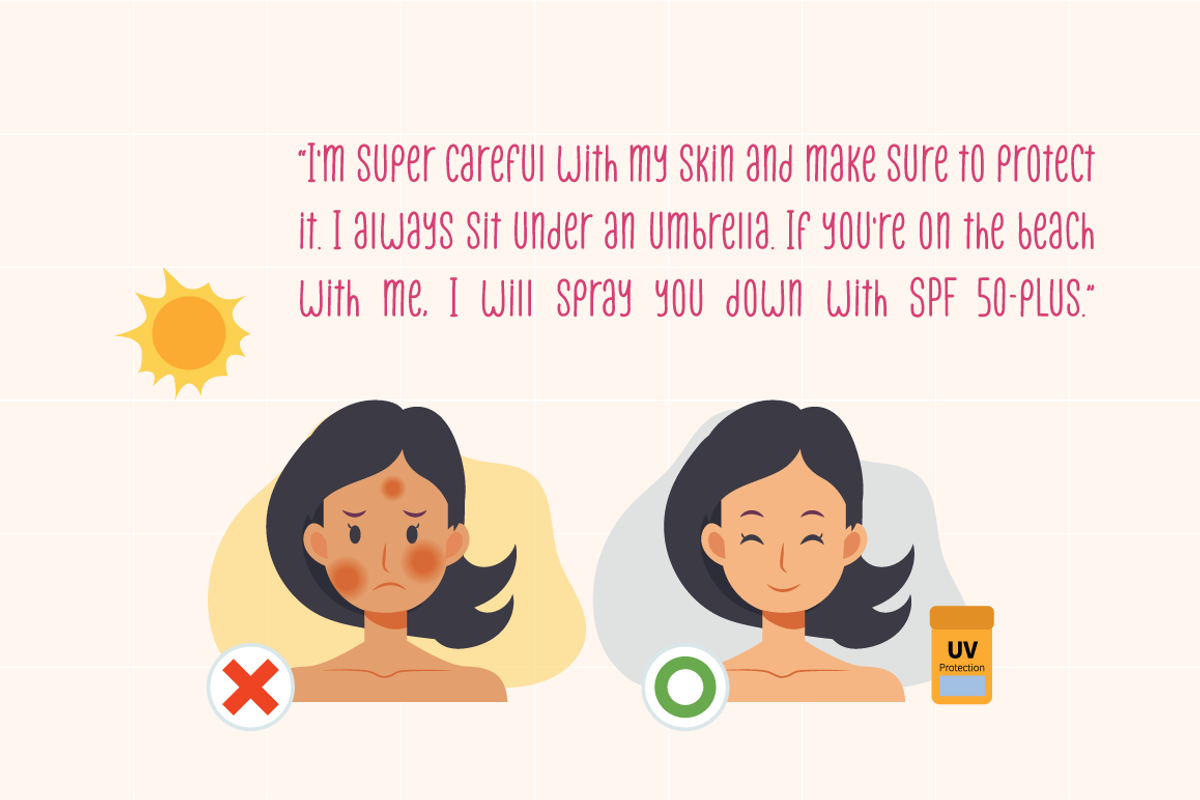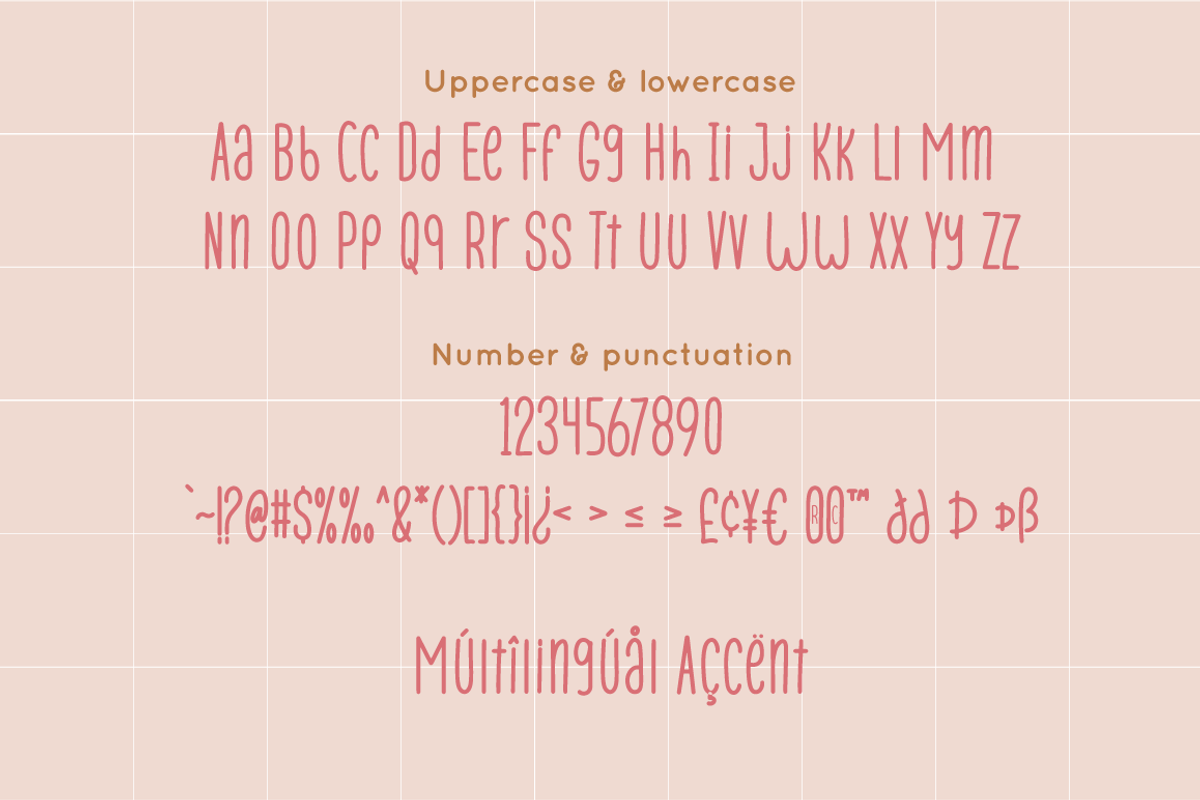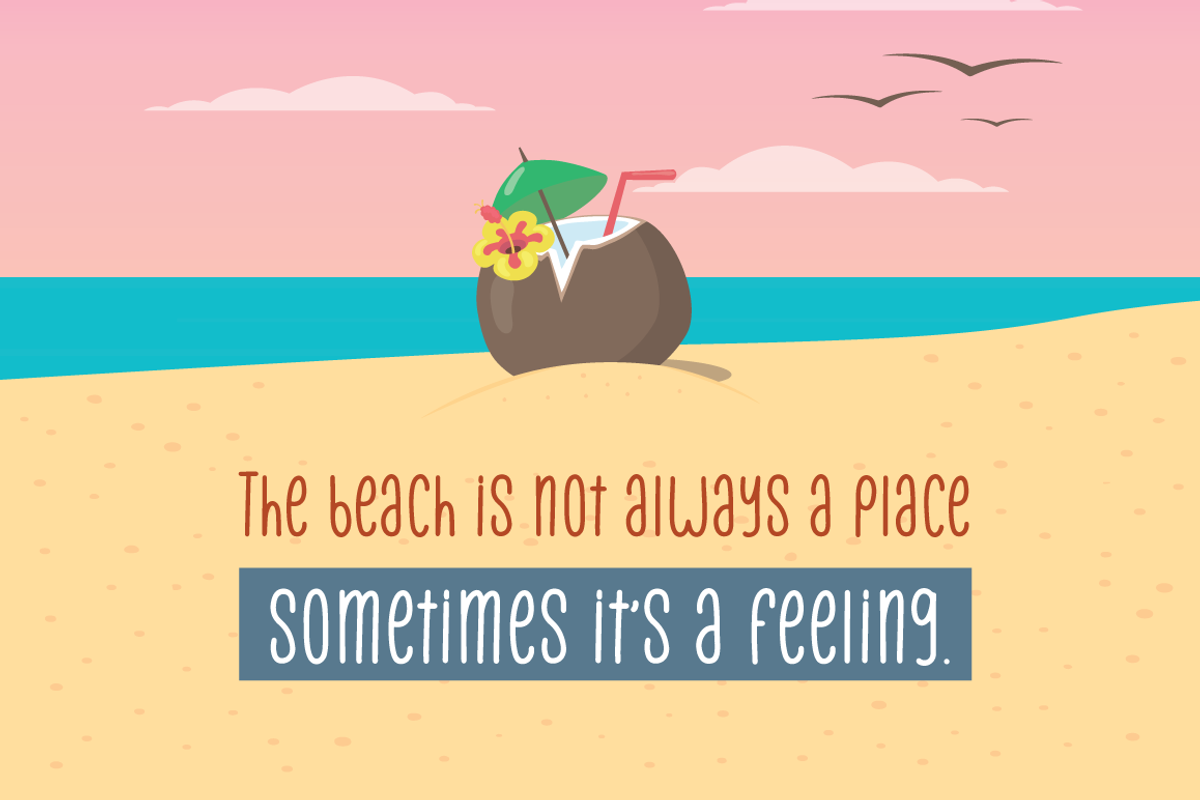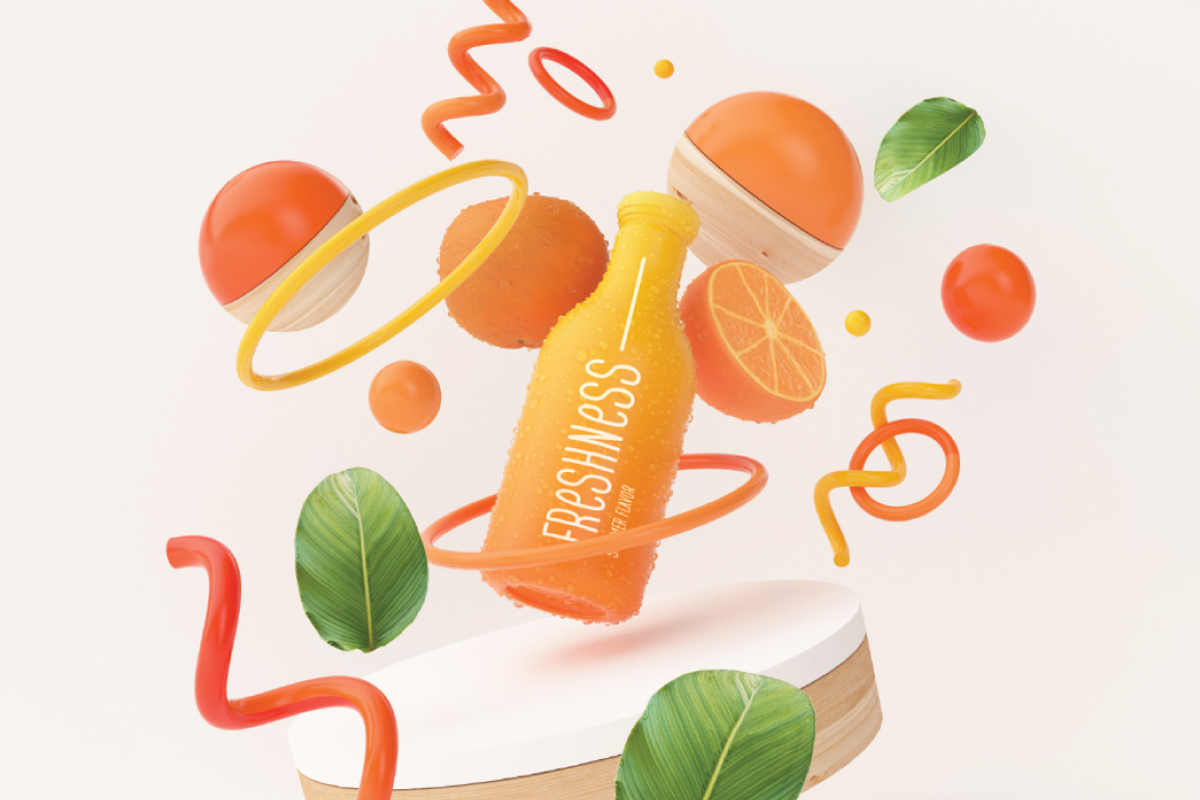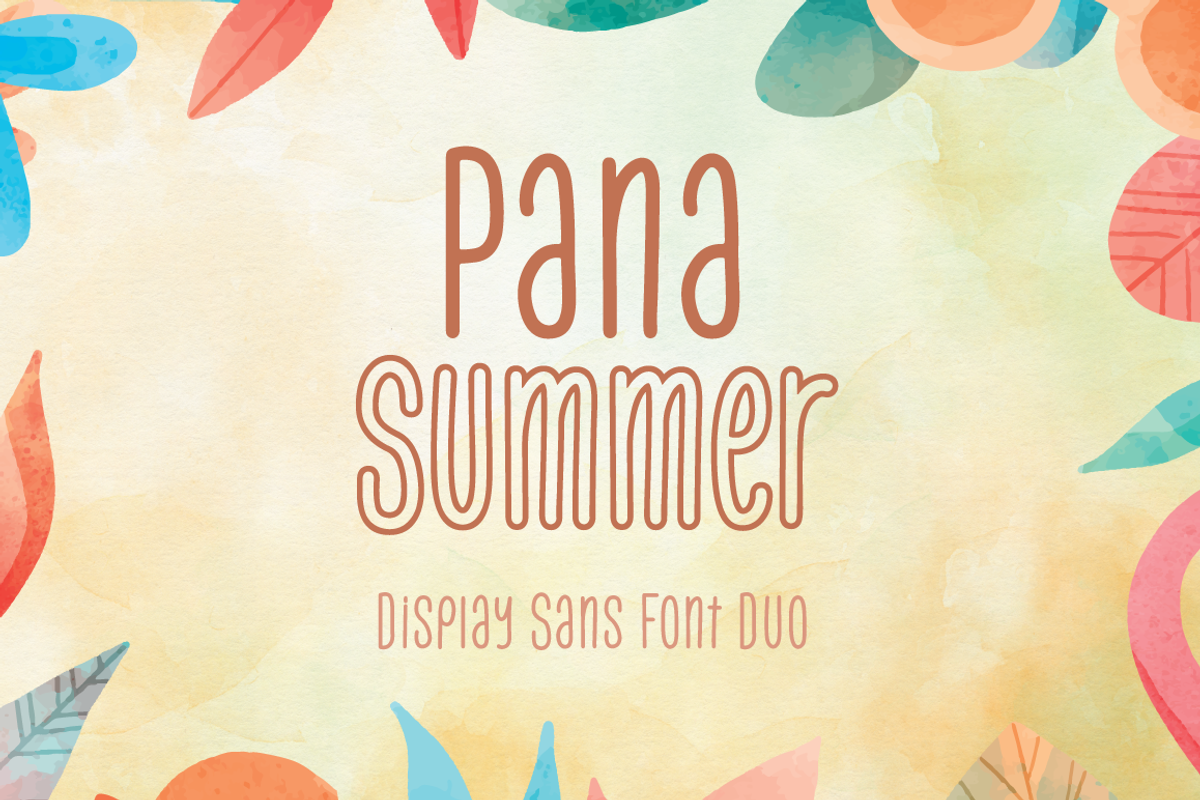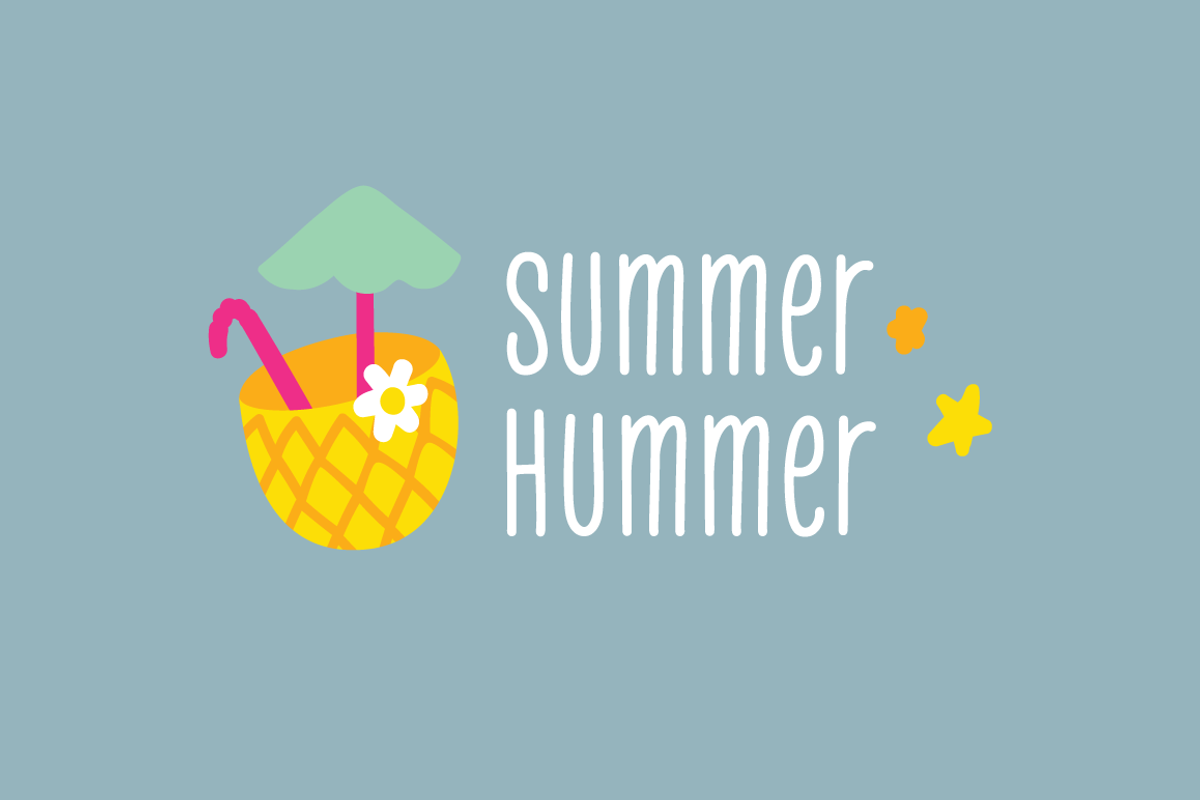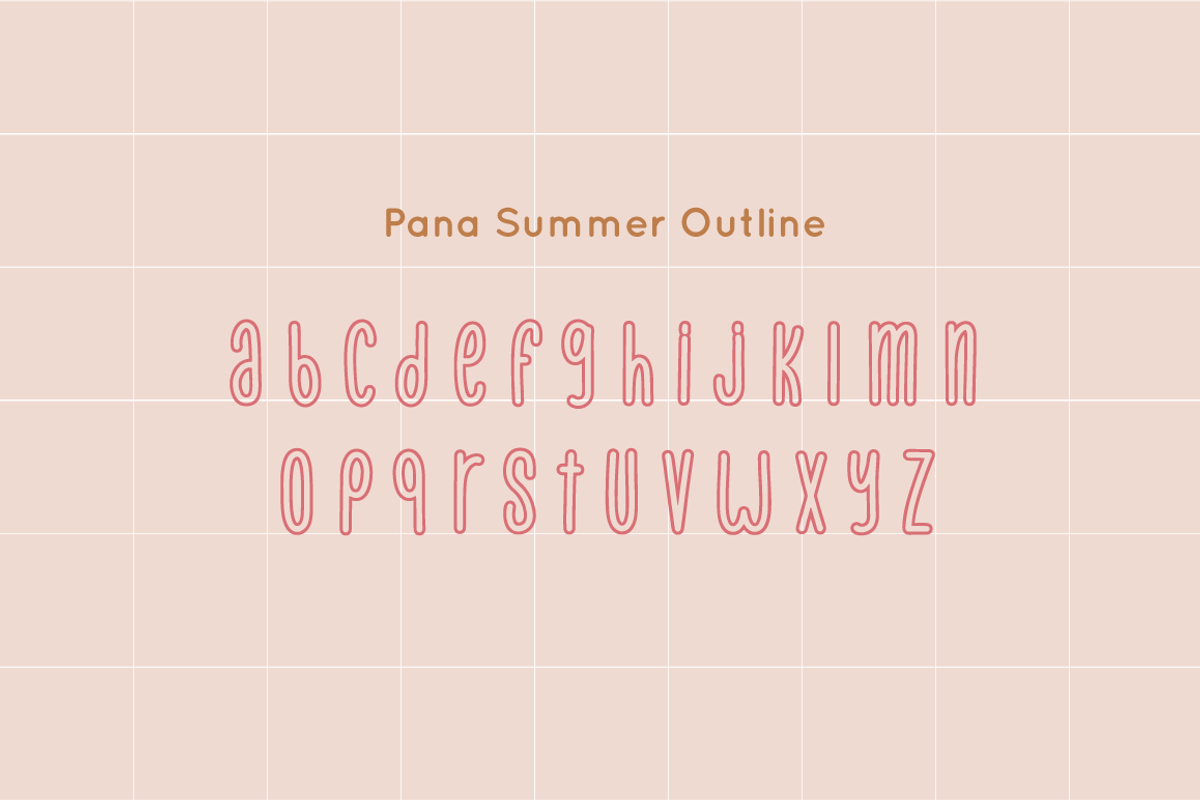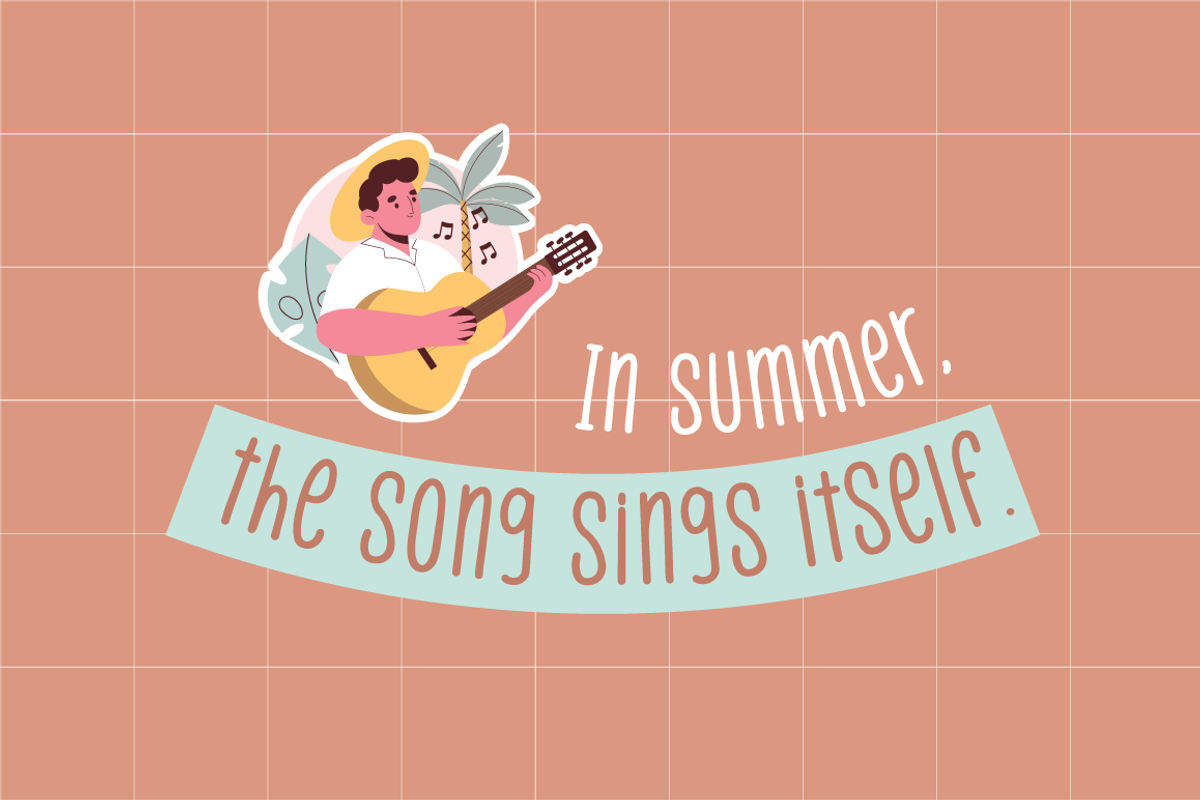
Pana Summer - Display Sans Font Duo
Pana Summer is a Display summer font duo, make an amazing combination between outline and regular style.
Pana Summer is perfect for summer event, summer party, branding, logo, invitation, quotes, apparel design, product packaging, merchandise, game titles, cute style design, Book/Cover Title and more.
- Font Duo